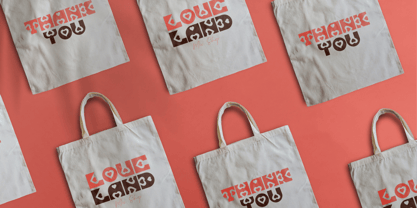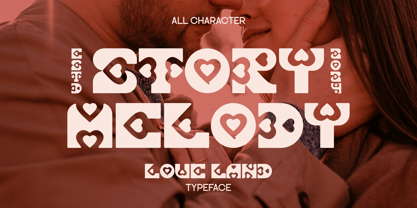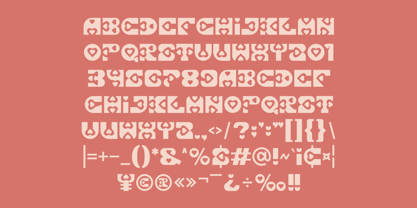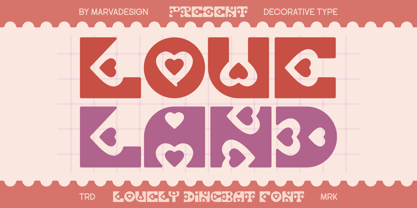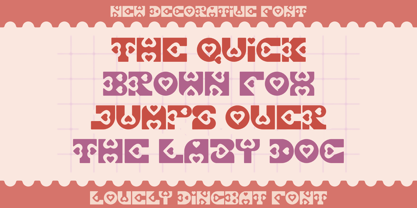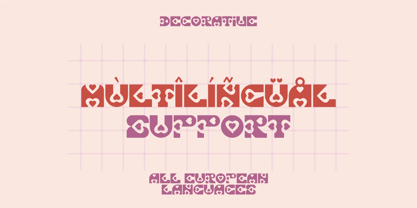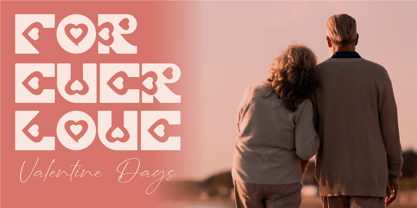
Love Land
The Love Land Font Family was designed by Febrie Setiawan and published by Marvadesign. Love Land contains 1 styles. More about this family
Introducing Love Land font is a decorative typeface characterized by bold, geometric letterforms infused with romantic elements. Each letter is designed with a blocky, modular structure, incorporating heart-shaped cutouts and embellishments that enhance its affectionate and whimsical aesthetic. The font exhibits a balance between structured rigidity and playful softness, making it ideal for themes centered around love, romance, and celebrations.
With a retro-modern appeal, Love Land integrates a vintage-inspired grid layout, reminiscent of classic pixel or arcade-style typography, yet modernized with smooth curves and well-balanced proportions. The carefully crafted negative spaces, filled with heart motifs, add a unique charm, making the letters feel both structured and expressive.
This typeface is best suited for projects that require a visually striking and emotionally evocative touch, such as Valentine's Day promotions, wedding invitations, romantic branding, and social media graphics. The versatility of Love Land allows it to be used in various color schemes, maintaining its distinct legibility while adding an elegant yet playful atmosphere to any design composition.